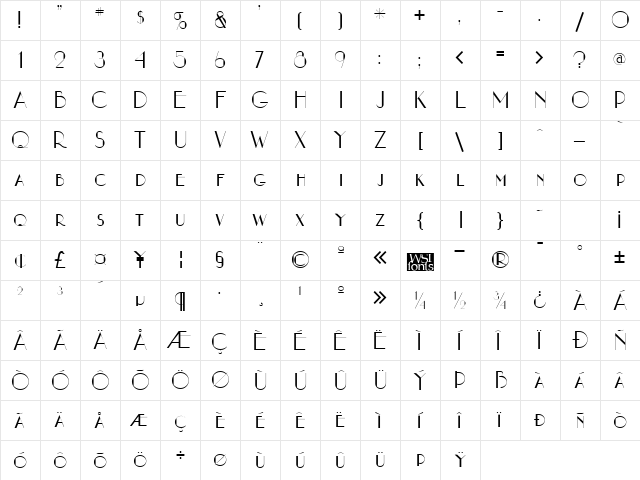
NouveauAsta Regular
Design Context for NouveauAsta Typeface
NouveauAsta is a composed and adaptable typeface that performs quietly and consistently across a wide range of design contexts.